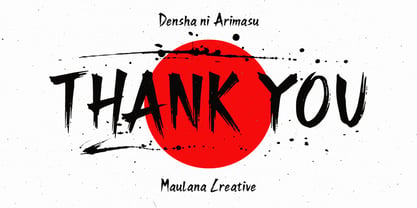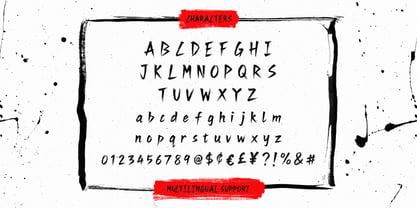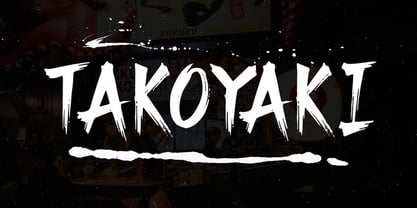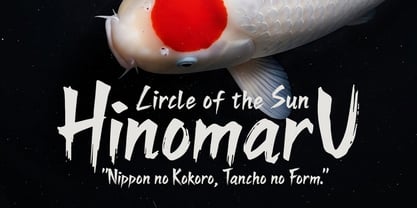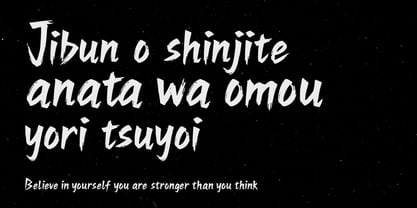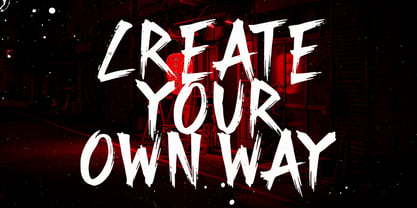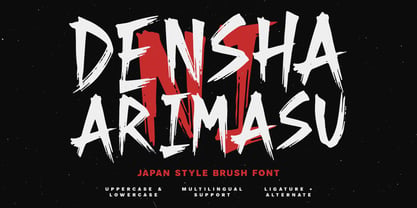
Densha Ni Arimasu
von Maulana Creative
Die Schriftfamilie Densha Ni Arimasu wurde von Gilang Maulana entworfen und von Maulana Creative veröffentlicht. Densha Ni Arimasu enthält 1 Stile. Mehr über diese Familie
Densha Arimasu is a powerful brush font captures the raw energy of traditional Japanese calligraphy and contemporary asian urban design. Featuring textured strokes and a hand-painted aesthetic, this typeface commands attention with its dynamic, edgy, and aggressive letterforms. It includes uppercase and lowercase characters, alternates, and ligatures to create truly unique and fluid typographic arrangements.
This versatile font is ideal for creates impact in diverse projects from branding and logos to large-format graphics, event materials, packaging, music promotion, and bold editorial headers. The rough, distressed brush texture adds a rugged layer of authenticity to any design, while the multilingual support ensures global reach. Whether used for food packaging, sports branding, or entertainment posters, Densha Arimasu injects immediate personality and a compelling aesthetic into every character.
Designer: Gilang Maulana
Foundry: Maulana Creative